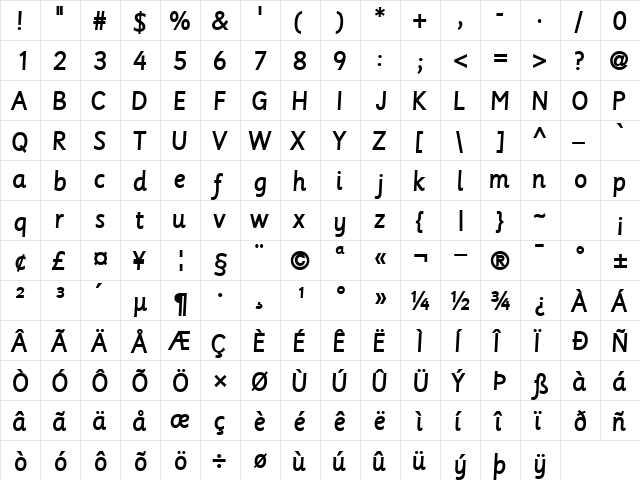
UpstartSSi Bold
Design Context for UpstartSSi Typeface
UpstartSSi is a composed and adaptable typeface that performs quietly and consistently across a wide range of design contexts. Its bold stroke weight gives it real presence on the page.